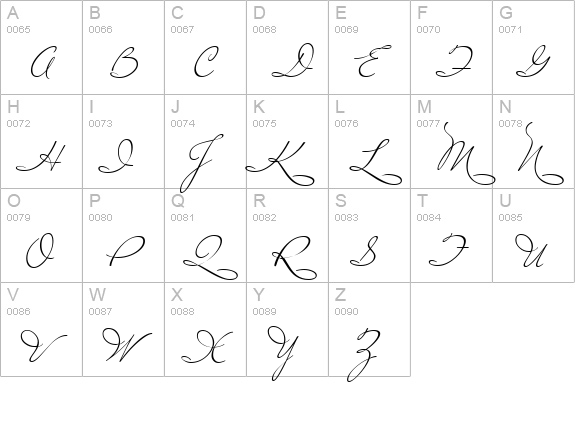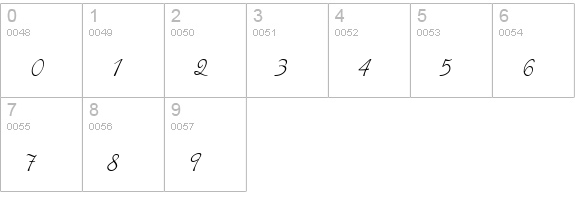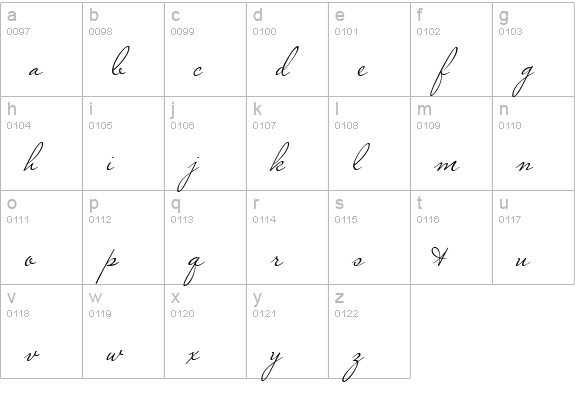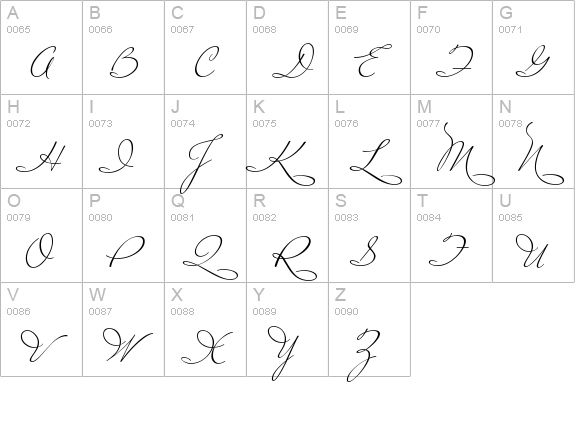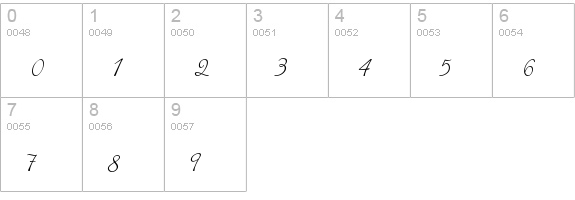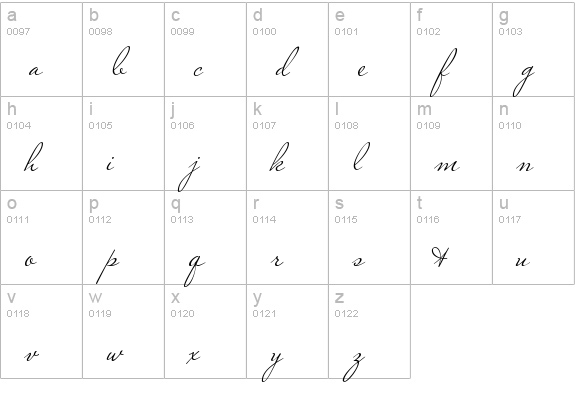
Miss Le Gatees font is a whimsical and charming typeface that exudes a playful and feminine vibe. With its delicate curves and elegant flourishes, this font is perfect for adding a touch of sophistication to any project. Whether you are designing invitations, greeting cards, or branding materials, Miss Le Gatees font will surely make a lasting impression. The best part? Miss Le Gatees font is completely free to download at FontsMarket.com. Yes, you read that right - you can easily access this beautiful font without spending a dime. So go ahead and elevate your designs with the enchanting beauty of Miss Le Gatees font, now available for free at FontsMarket.com.